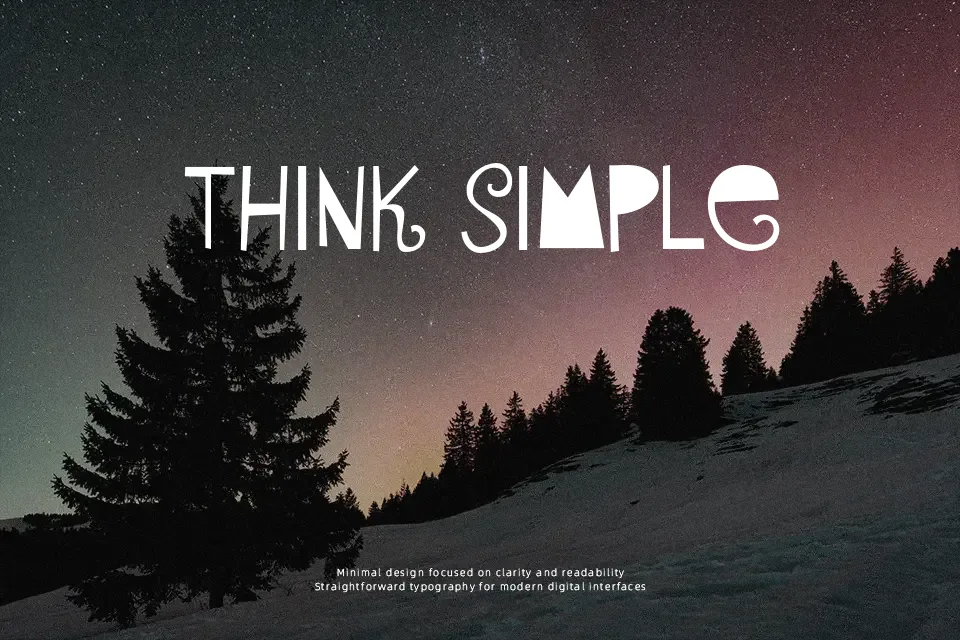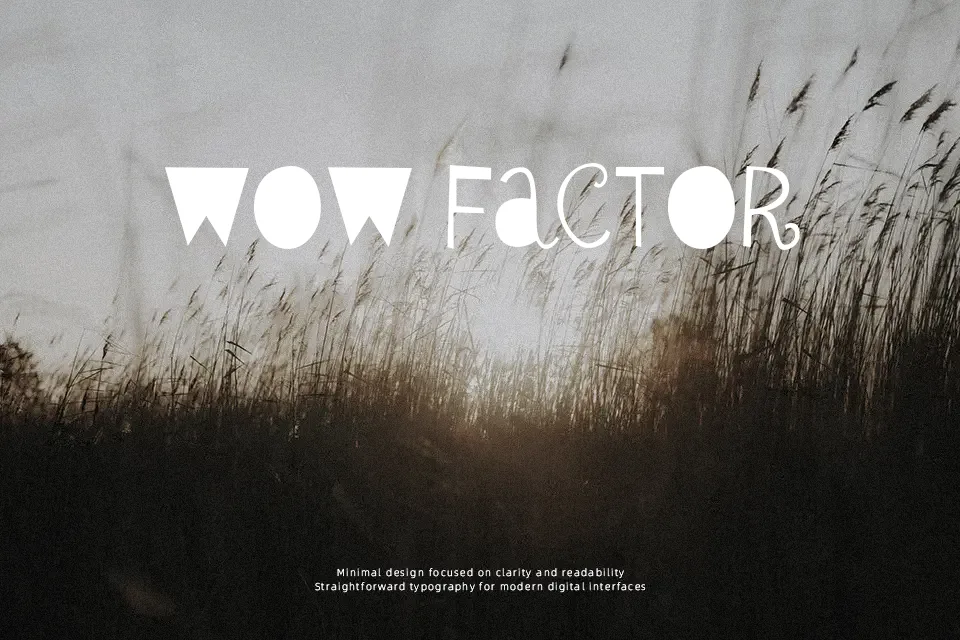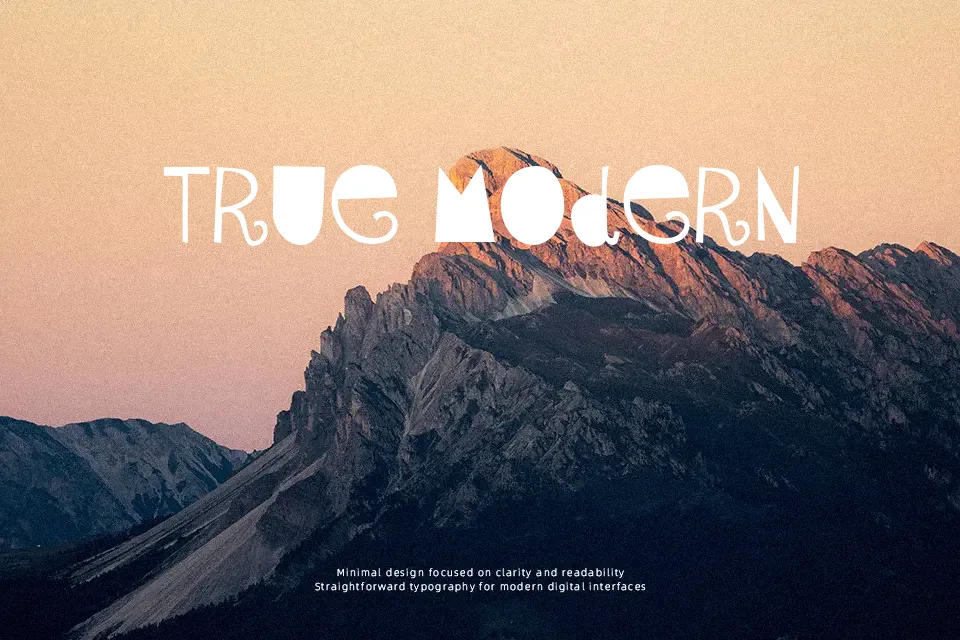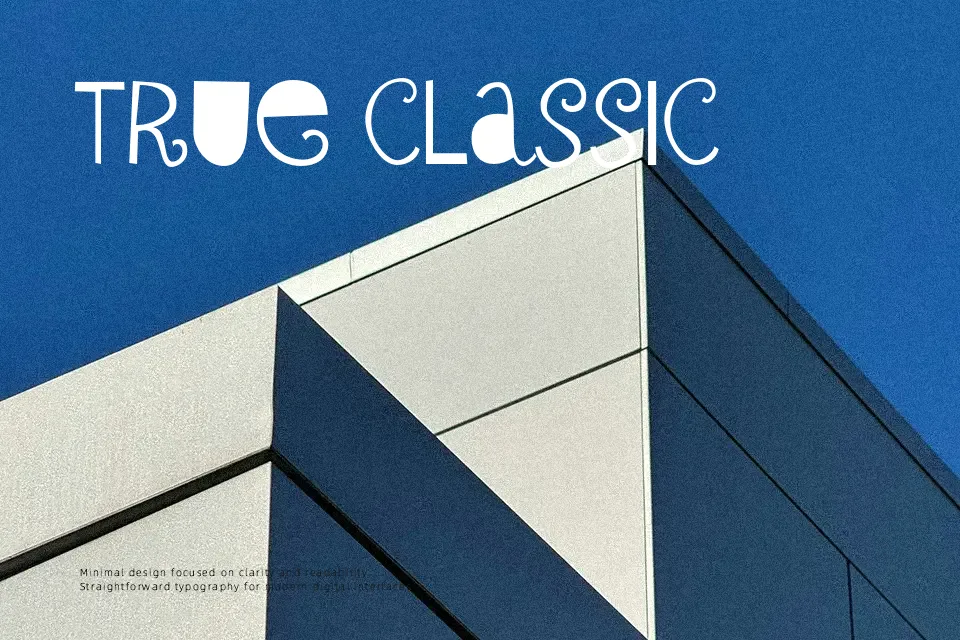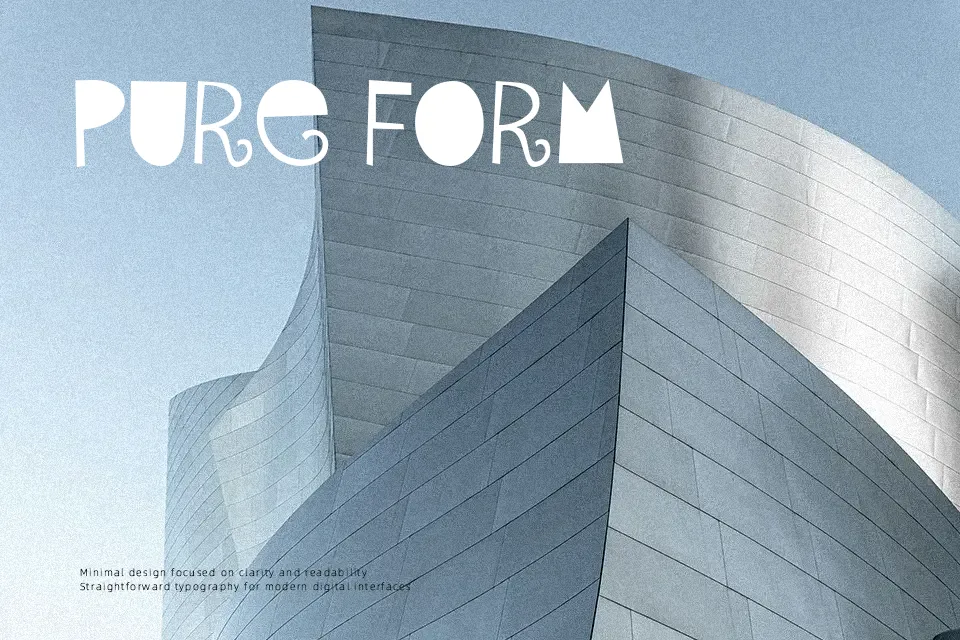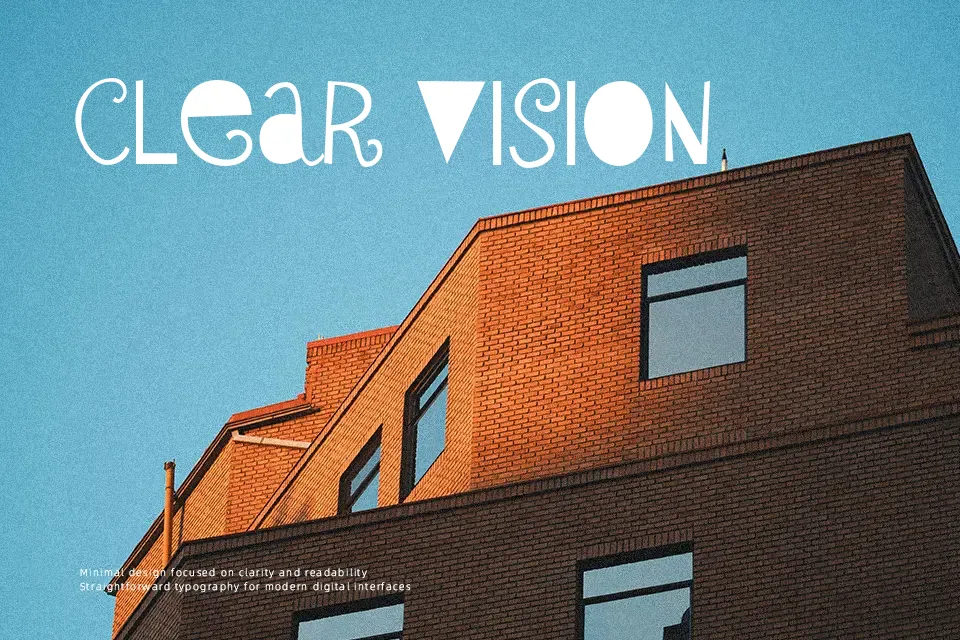
Sybil Green Font
Sybil Green Font uses heavy, curving letterforms with compact inner spaces and a deliberately unconventional silhouette. Its broad strokes, rounded contours, and closely fitted proportions give uppercase and lowercase text a dense, animated rhythm. The characters hold attention most effectively in short words, titles, and oversized compositions, where their distinct shapes remain easy to recognize. Spacing supports compact display settings, but the filled counters and decorative construction make longer passages visually tiring. It is a practical choice for artwork that needs a strong typographic focal point rather than neutral, everyday reading text.
Best For: music poster headlines,album cover titles,expressive logo designs,festival promotional graphics
Perfect for headline, logo, and music, with a artistic and decorative style.